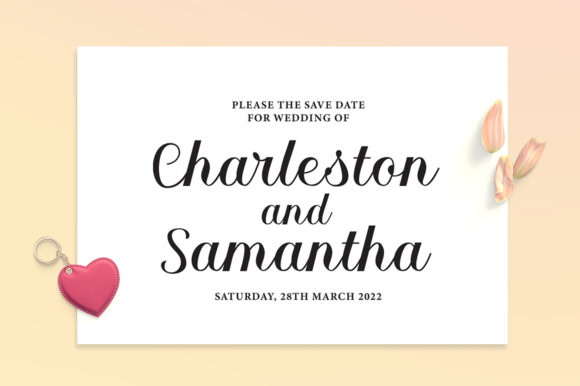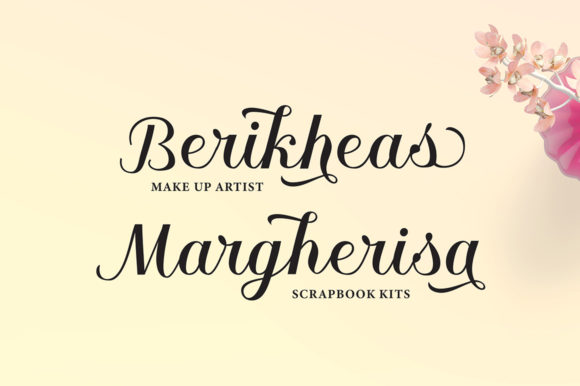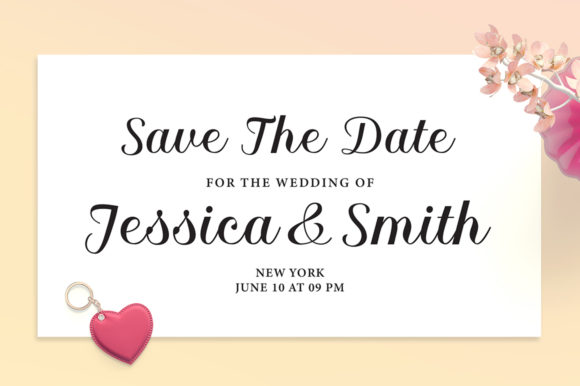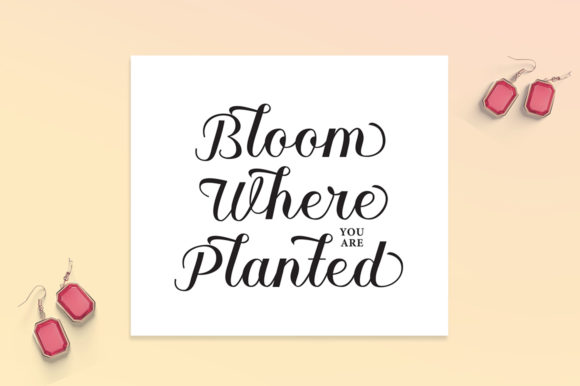
About Netashia Font
Netashia is an elegant calligraphy font. Inspired by timeless classic calligraphy, balanced and varied, feels incredibly elegant and flowing. It looks stunning on wedding invitations, thank you cards, quotes, greeting cards, logos, business card. It features a smooth lines, gorgeous glyphs and stunning alternates. Fall in love with its incredibly versatile style and use it to create spectacular designs!